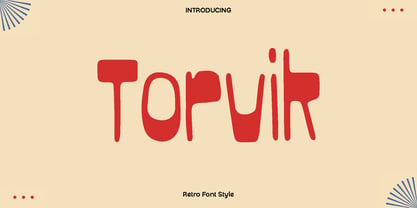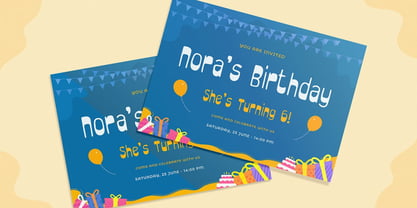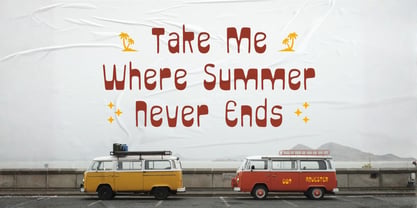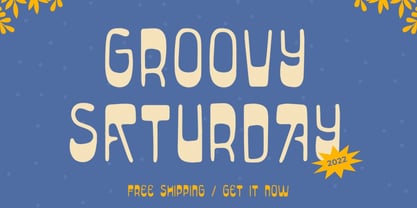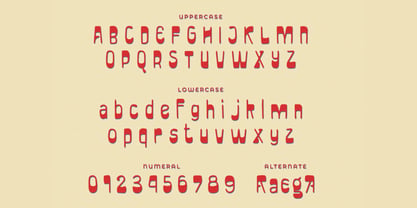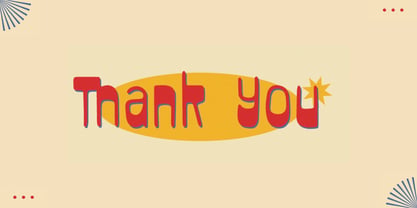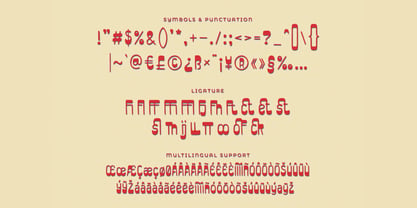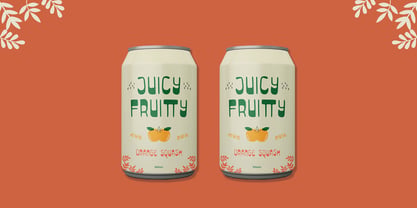
Torvik
The Torvik Font Family was designed by Olivia Love and published by Only Fonts. Torvik contains 1 styles. More about this family
Torvik is a playful retro display font that captures the vibrant spirit and nostalgic charm of 1980s design. Bold, energetic letterforms with geometric influences evoke the decade's signature aesthetic, blending neon-inspired color schemes with angular, dynamic shapes that feel both futuristic and undeniably fun. This typeface transports viewers to an era of pop culture excess, synthesizer beats, and unapologetic creative experimentation. Torvik shines in projects that celebrate vintage nostalgia with contemporary flair, whether designing album covers, event posters, brand identities seeking retro appeal, or eye-catching merchandise graphics. Where it excels: Music and entertainment branding: Album covers, concert posters, music festival artwork, and DJ/band graphics that benefit from an authentic 80s sonic aesthetic. Retro-themed businesses: Vintage clothing stores, classic arcades, throwback restaurants, and nostalgia-driven boutiques seeking immediate visual recognition. Marketing campaigns: Seasonal promotions, limited-edition product launches, and nostalgia-driven advertising that aims to resonate with both Gen-X audiences and retro-curious younger demographics. Fashion and lifestyle: T-shirt graphics, skateboard designs, streetwear branding, and lifestyle products targeting enthusiasts of retro trends. Standout features: Bold uppercase and lowercase letters crafted with 80s geometric sensibility and playful exaggeration for maximum visual impact. Numerals and punctuation carefully designed to complement the typeface's energetic character and maintain consistency across applications. Alternates and stylistic variations offering multiple interpretations of letterforms so designers can create layered, complex compositions with visual depth. Ligatures that resolve letter pairs with authentic 80s flair, adding refinement to retro compositions. Multilingual support ensuring the nostalgic Torvik aesthetic translates confidently across regions and languages worldwide. Choose Torvik when your design brief demands authentic 80s nostalgia combined with playful energy. It delivers that special retro touch to any creative project while maintaining modern legibility and contemporary appeal.